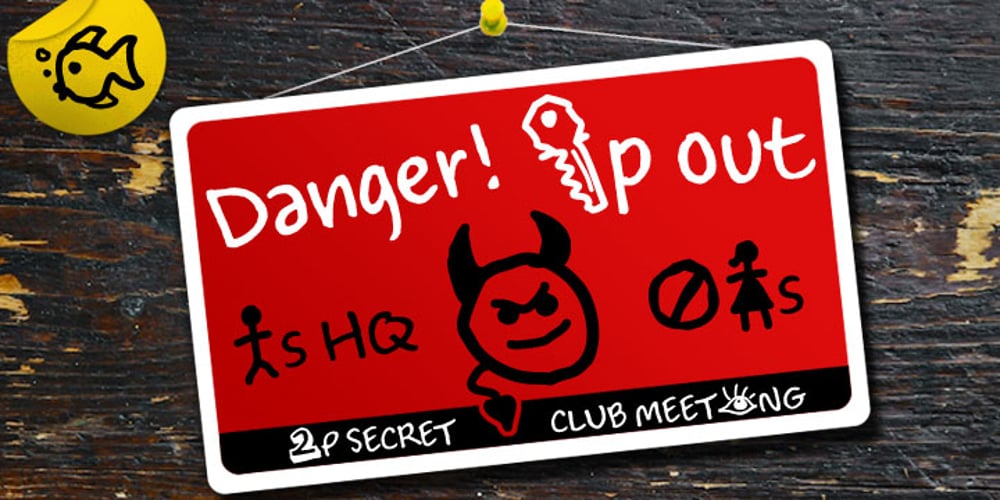
Rebus Script Font Family was designed by Steve Matteson, Terrance Weinzierl and published by Ascender. Rebus Script contains 1 styles and family package options. Rebus Script is a fun, lively font that lets you create rebus puzzles by automatically replacing certain words or syllables with pictures. This font is an advanced OpenType font that requires an application that supports Contextual Alternates. The font was created by Terrance Weinzierl and is based on the Louisville Script handwriting font designed by Steve Matteson. To use the font you simply type a word like ‘sun’ or ‘son’ and those letters will automatically be replaced by a picture of the sun. There are over 70 pictorial symbols in Rebus Script that make up the ‘vocabulary’ for automatic substitution based on over 300 different syllable/word combinations in various cases (lower, upper, titling) in the English language.